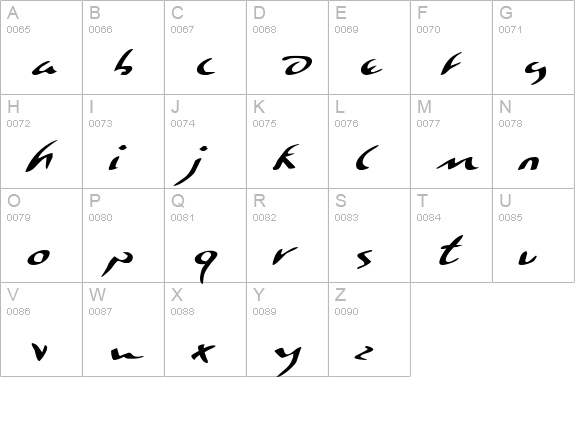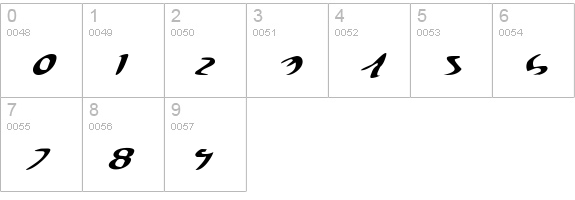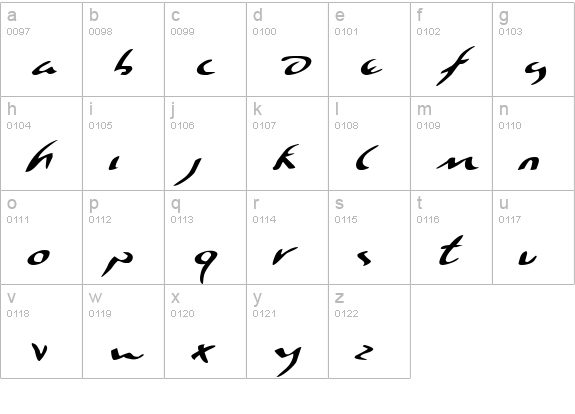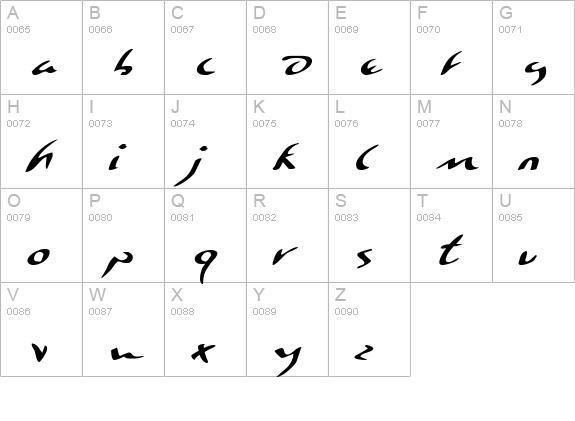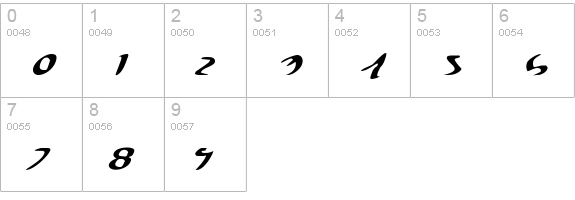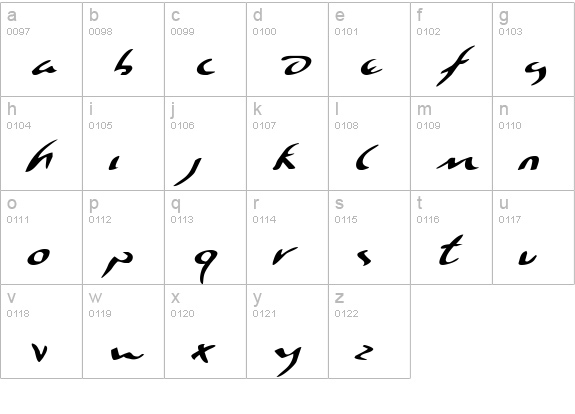
Eagleclaw Expanded Italic is a distinctive, extended-width, italic variant in the Eagleclaw typeface family \xE2\x80\x94 well suited to design and typography projects.
Introducing Eagleclaw Expanded Italic font - a sleek and dynamic typeface that exudes elegance and sophistication. Its italic design adds a touch of modernity and flair to any project, making it perfect for branding, editorial design, and more. The elongated letterforms and sharp angles of Eagleclaw Expanded Italic font give it a truly unique and eye-catching appearance. What sets Eagleclaw Expanded Italic font apart is not only its striking aesthetics but also its versatility. Whether you're looking to make a bold statement or add a touch of refinement to your designs, this font has you covered. Its clean lines and distinctive style make it a standout choice for any creative project. And the best part? Eagleclaw Expanded Italic font is completely free to download at FontsMarket.com. With just a few clicks, you can access this stunning typeface and elevate your designs to new heights. Don't miss out on the opportunity to add Eagleclaw Expanded Italic font to your font library today!